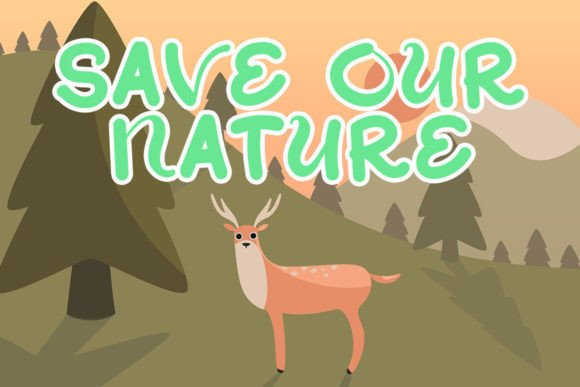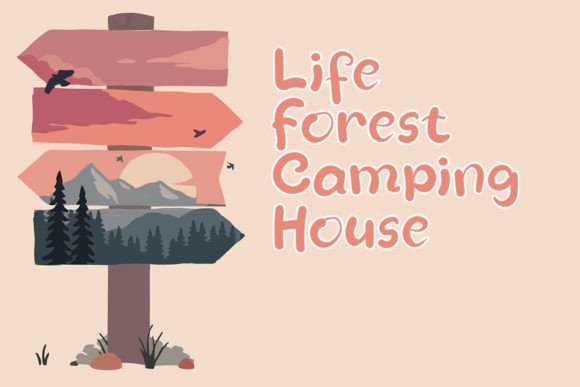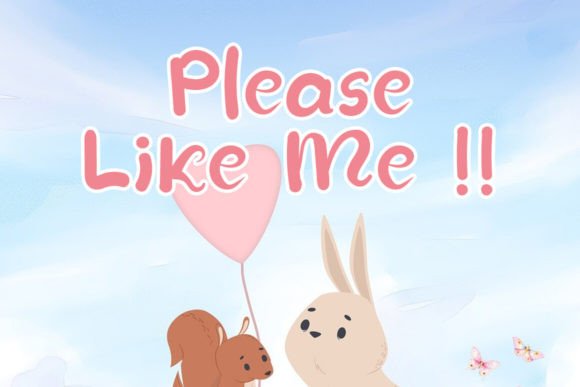
The Ultimate Design Swiss Army Knife: A Deep Dive into High Jumps Font
I’ll never forget the frustration of working on a project, hours pouring into every detail, only to hit a roadblock: finding the perfect font. My client wanted something modern, versatile, and highly legible across various platforms. That’s when I stumbled upon High Jumps Font, and my design woes disappeared. In this article, I’ll share my love affair with High Jumps, its incredible features, and how to make the most of it in your designs.
• Multiple weights and styles: High Jumps offers an impressive range of weights and styles, making it perfect for creating diverse design elements, from bold headlines to elegant body text.
• OpenType features: This font comes with advanced OpenType features, allowing for beautiful swashes, stylistic alternates, and ligatures that elevate your designs.
• 🌈 Branding versatility: With High Jumps, you can craft stunning logos, business cards, and other branding materials that scream professionalism.
• 🤔 Glyph panel navigation: Some users might find navigating the glyph panel in certain software (like Adobe Creative Cloud apps) a bit tricky at first. However, once you get the hang of it, it’s smooth sailing.
• ⚠️ Character limit in some software: A few users have reported character limit issues when using High Jumps in certain design software. Make sure to check compatibility before diving into your project.
The Designer Inspiration Behind High Jumps
High Jumps Font was crafted with the modern designer in mind. Its creator aimed to develop a versatile typeface that could tackle any design challenge, from sleek branding to elegant editorial content. The result is a font that effortlessly adapts to your creative vision.
Is High Jumps suitable for body text? Absolutely! High Jumps offers multiple weights, making it perfect for both headings and body text.